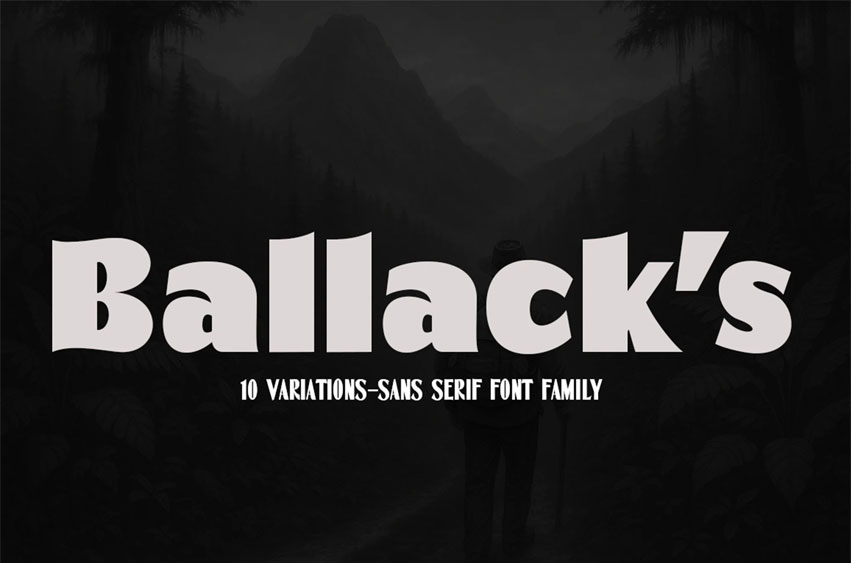
Balllack's Font
Balllack’s Font
Balllack’s Font is a New, Formal, and Elegant Typeface. Created in a very bold style. Balllack’s is a variation of the normal style font and has a distinctive feature in that the corners of the glyph characters look sharp. This font comes in 10 variations. This font looks amazing in logos, magazines, and films. This font will be perfect for branding, headlines, captions, paragraphs, and posters. Various weights allow you to experiment with various applications. This font is made to make an impression without sacrificing its beauty and readability.
Balllack’s is Sans-serif lettering and typefaces are popular due to their clarity and legibility at a distance in advertising and display use, both when printed very large or very small.